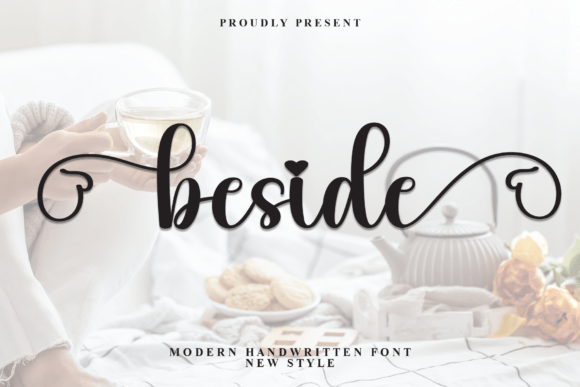
Discover the Charm of Beside Font: A Sweet Addition to Your Design Toolkit
I’ll never forget the time I was working on a wedding invitation project, and my client asked for a font that would capture the essence of their special day – something sweet, friendly, and utterly charming. As I scoured the internet for the perfect match, I stumbled upon Beside Font, and it was love at first sight! 💕 In this article, I’ll share my experience with this captivating handwritten display font, and explore its features, uses, and alternatives.
A Personal Review: What I Love About Beside Font
Beside Font is a lovely fusion of sweetness and friendliness, making it perfect for crafting irresistible wedding invitations, greeting cards, or any design that craves that extra pinch of fun. Here are what I love about it:
- ✨ Enchanting and lighthearted vibes that add a touch of whimsy to any design
- ✅ Perfectly balanced sweetness and friendliness, making it suitable for various creative projects
- 💫 Pleasantly playful strokes that capture the joy in every detail
While Beside Font is an excellent addition to any design toolkit, there are a few minor quirks to be aware of:
- 🤔 Limited use in formal or professional designs, as it may come across as too playful or casual
- ⚠️ May not be suitable for body text or long-form content, as it’s primarily designed for display purposes
The Designer Inspiration Behind Beside Font
Beside Font was created with the intention of capturing the joy and playfulness of handwritten typography. Its designer aimed to create a font that would evoke feelings of warmth, friendliness, and approachability. While the actual design process may be shrouded in mystery, it’s clear that Beside Font has been crafted with love and care.
| Font Name | Beside Font |
| What type of designs is Beside Font best suited for? | Beside Font is perfect for creative projects that require a touch of sweetness and friendliness, such as wedding invitations, greeting cards, and other designs that need a playful vibe. |
| Is Beside Font suitable for body text or long-form content? | No, Beside Font is primarily designed for display purposes and may not be suitable for body text or long-form content. |